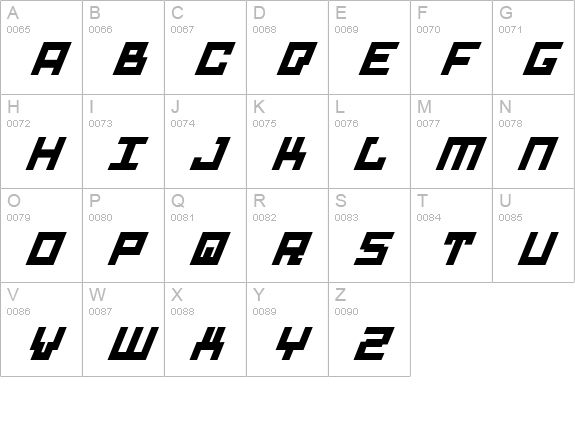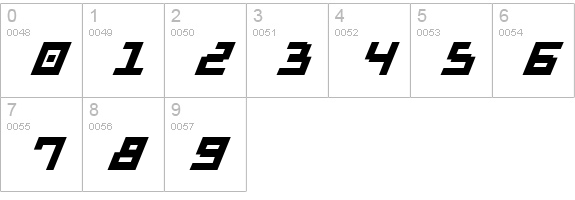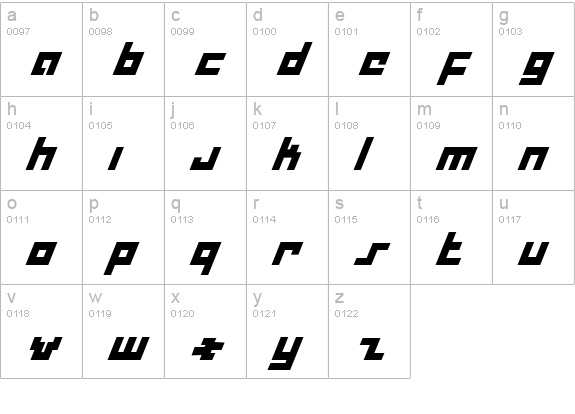
Drid Herder Solid Italic Font Details
Drid Herder Solid Italic is a distinctive, italic variant in the Drid typeface family \xE2\x80\x94 well suited to design and typography projects.
Drid Herder Solid Italic font is a stylish and modern typeface that is perfect for adding a touch of sophistication to your designs. With its sleek and bold italic style, this font is sure to make a statement and stand out from the crowd. Whether you're designing a logo, poster, or website, Drid Herder Solid Italic font will bring a unique and eye-catching element to your project. And the best part? This fantastic font is available for free download at FontsMarket.com! Get your hands on this versatile typeface today and elevate your designs with its elegant and contemporary charm. Don't miss out on the opportunity to enhance your creative work with Drid Herder Solid Italic font - download it now and watch your designs come to life!